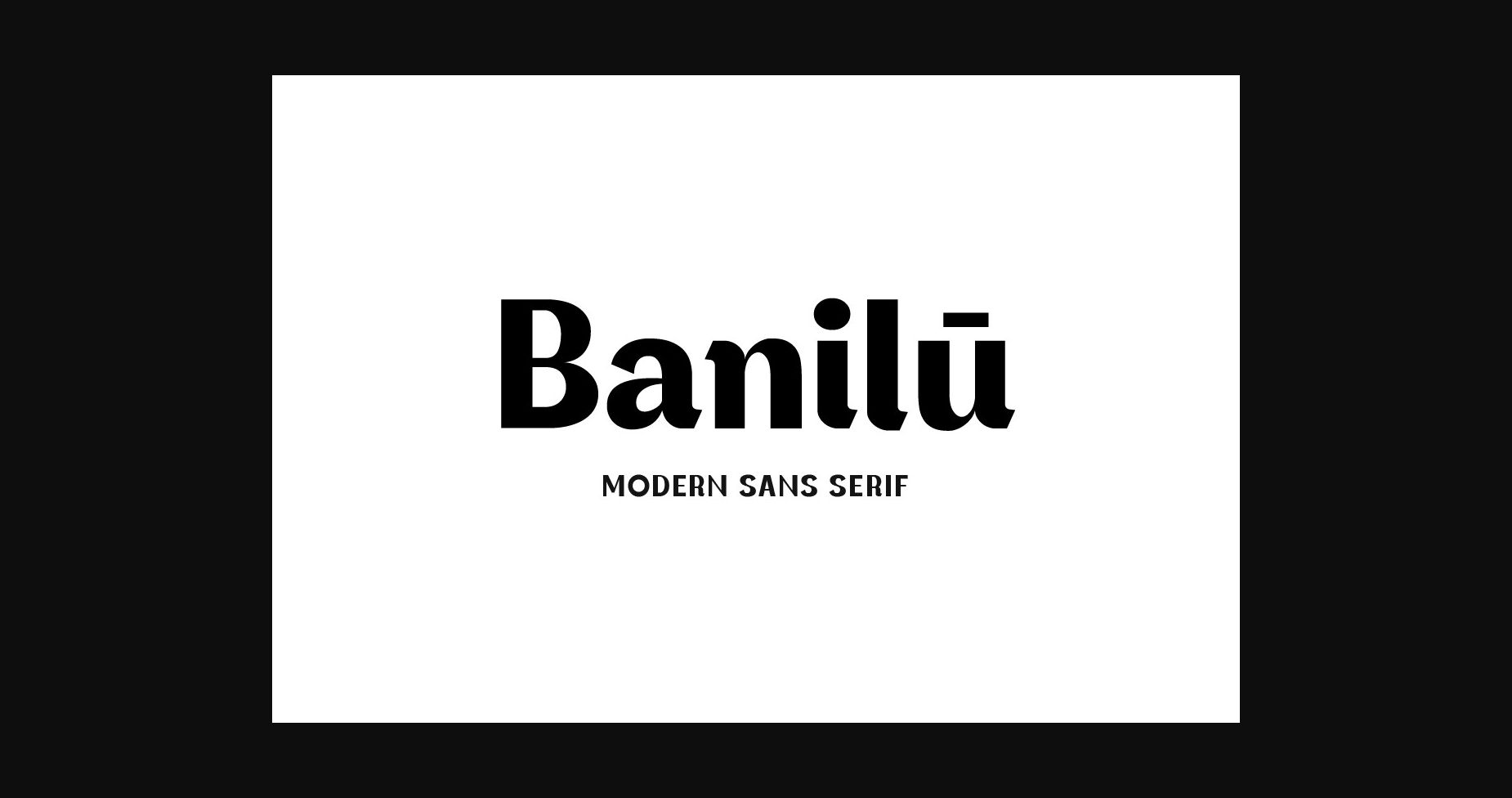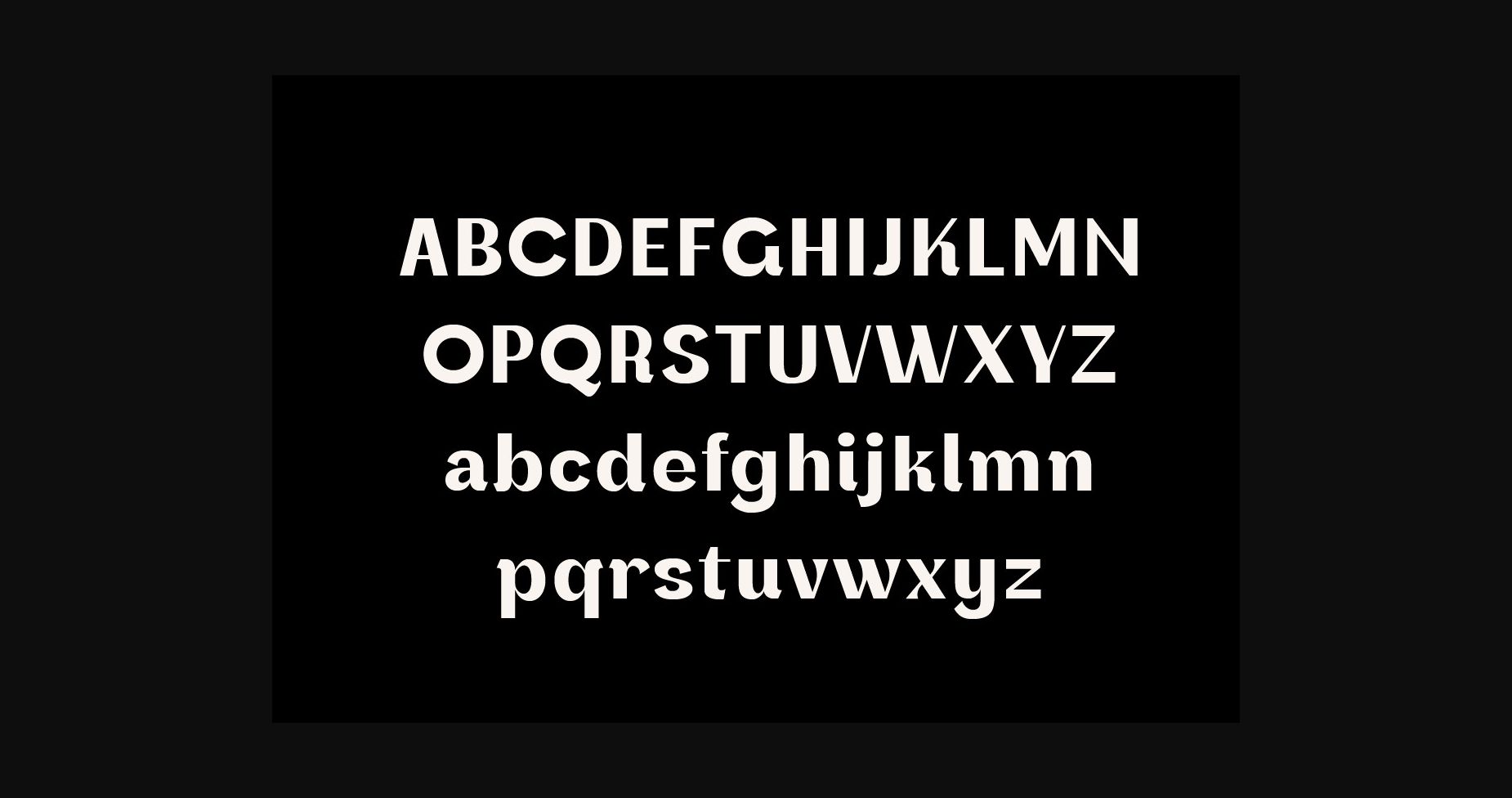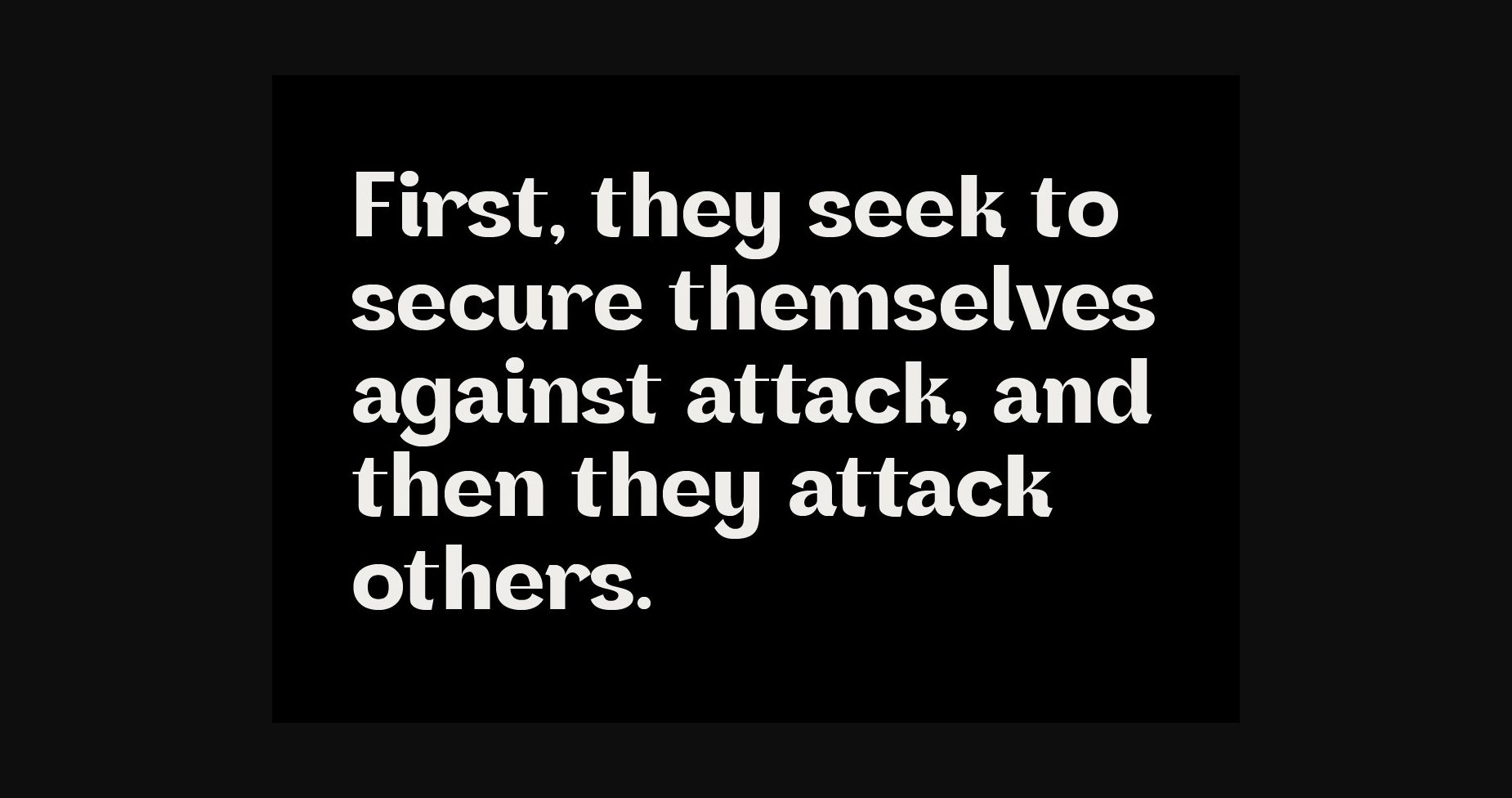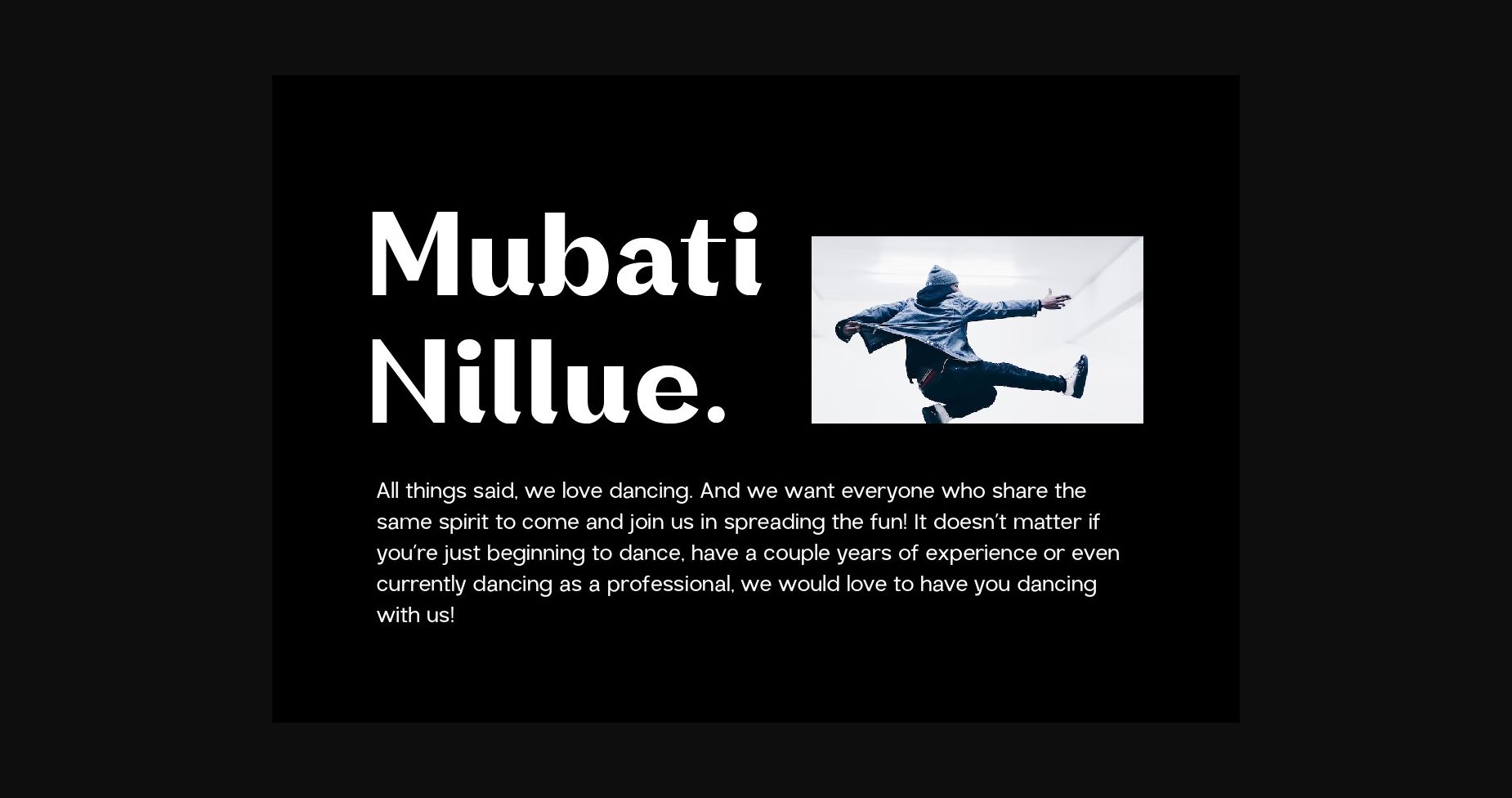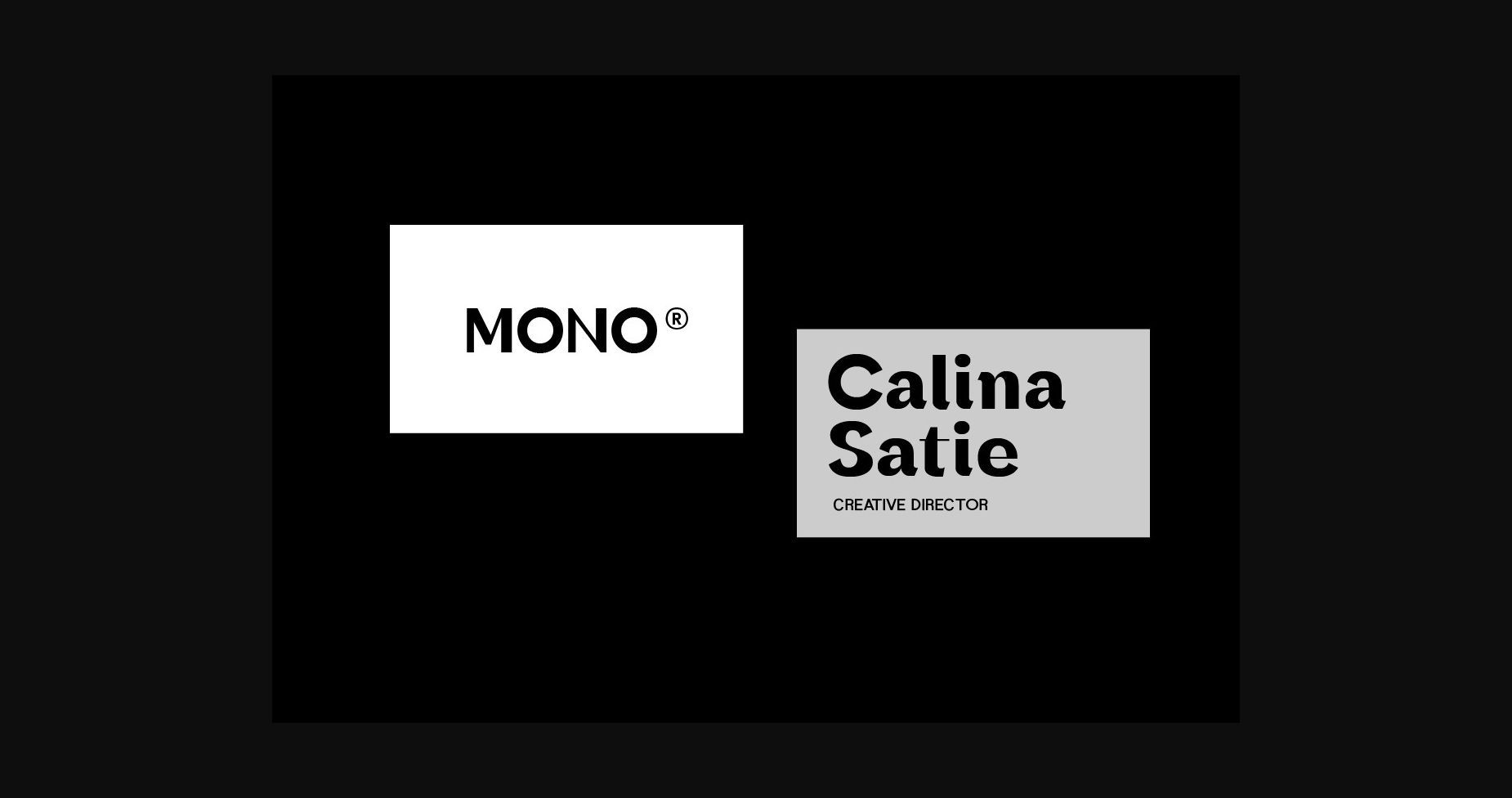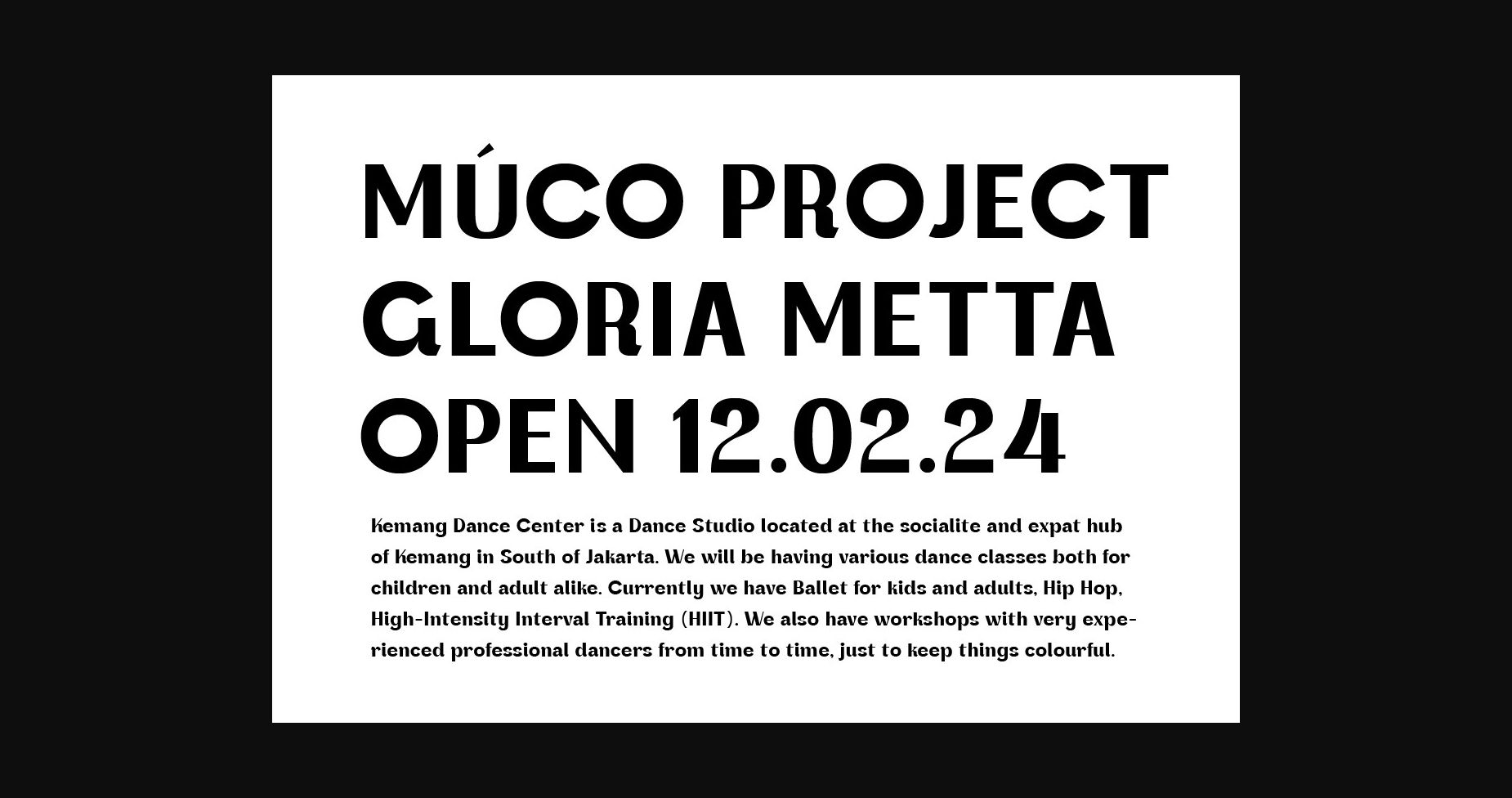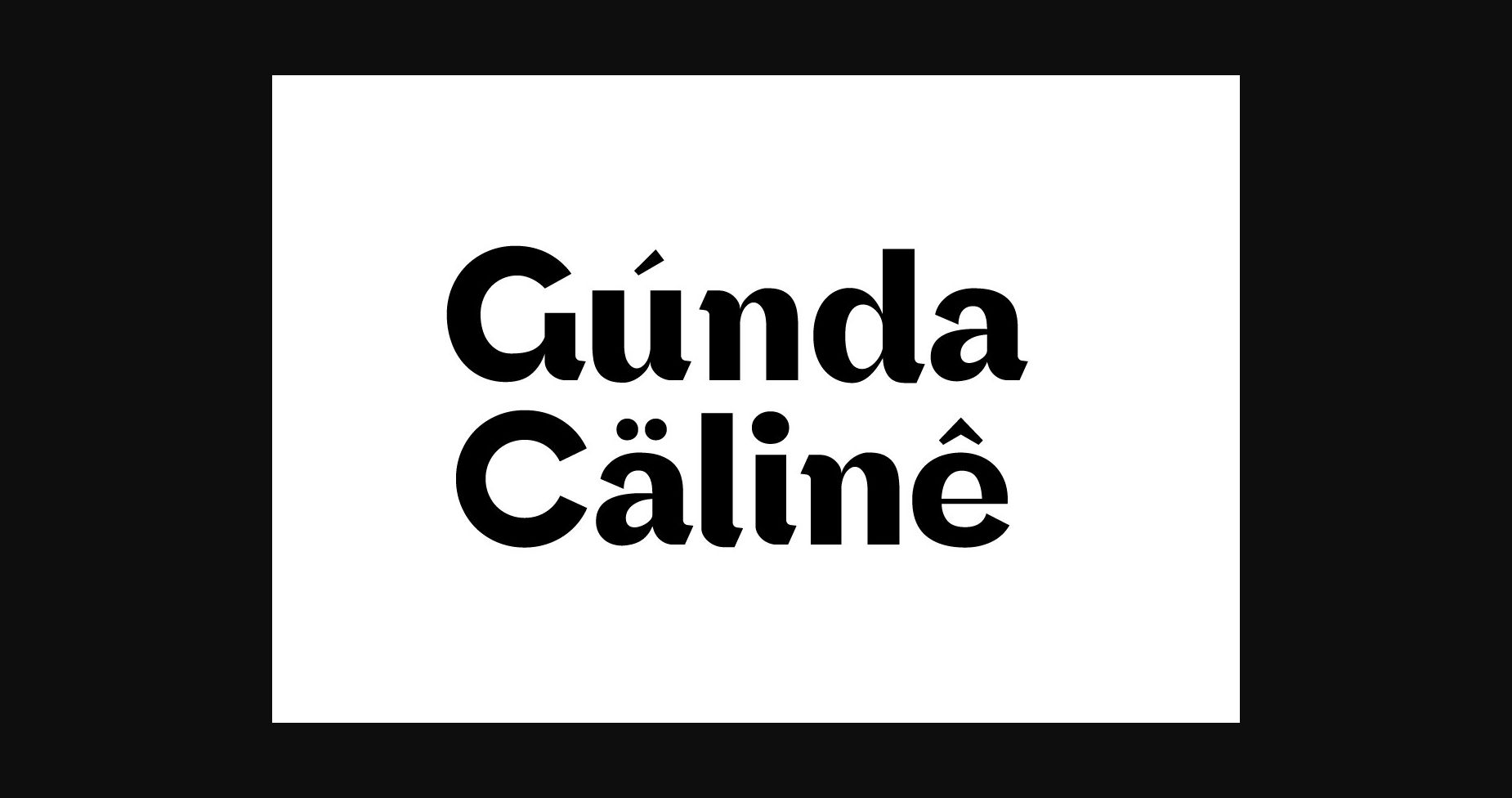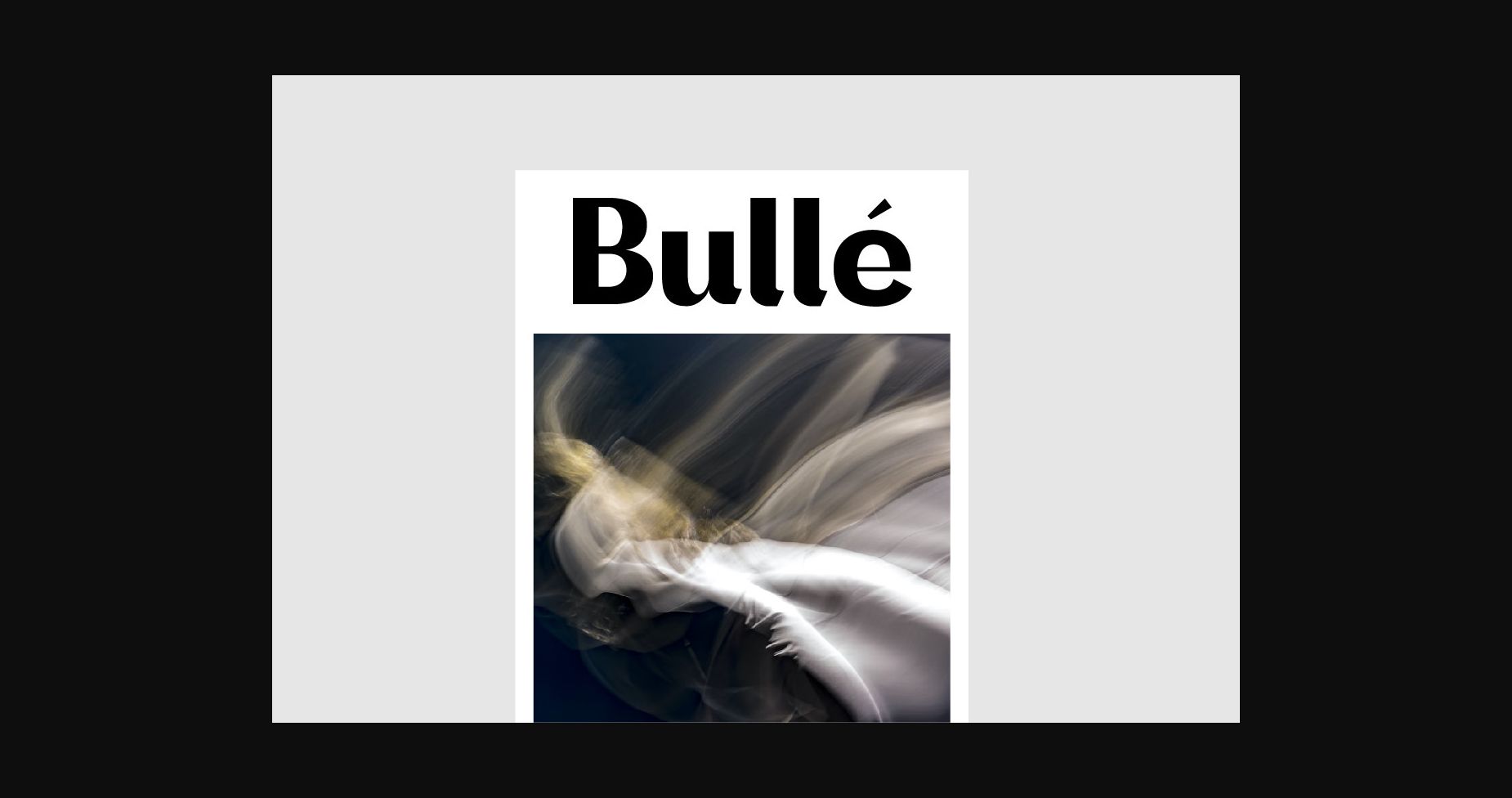
Banilu Font
About Banilu Font
Banilu is a modern and aesthetic sans-serif font that is the perfect choice for contemporary designs. Its sleek lines and sharp edges create a polished and professional look. The font’s versatility makes it ideal for a wide range of projects, from minimalist branding to editorial layouts.